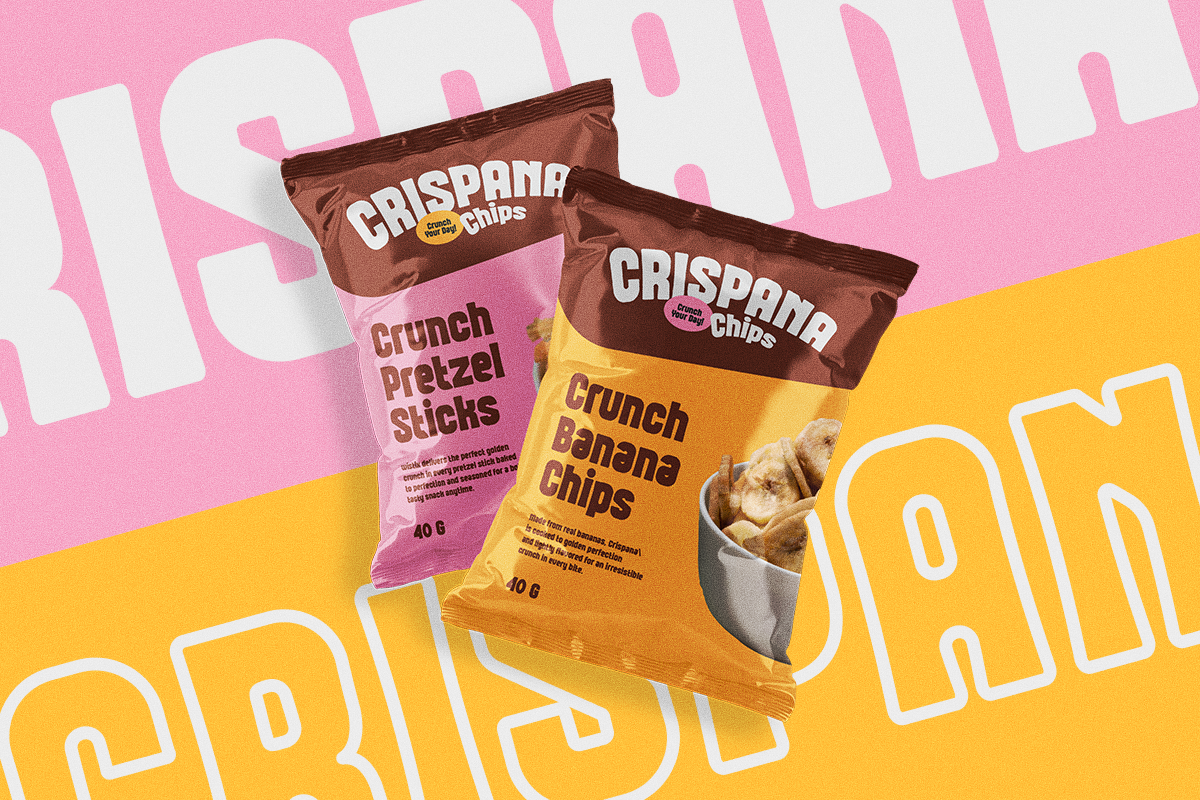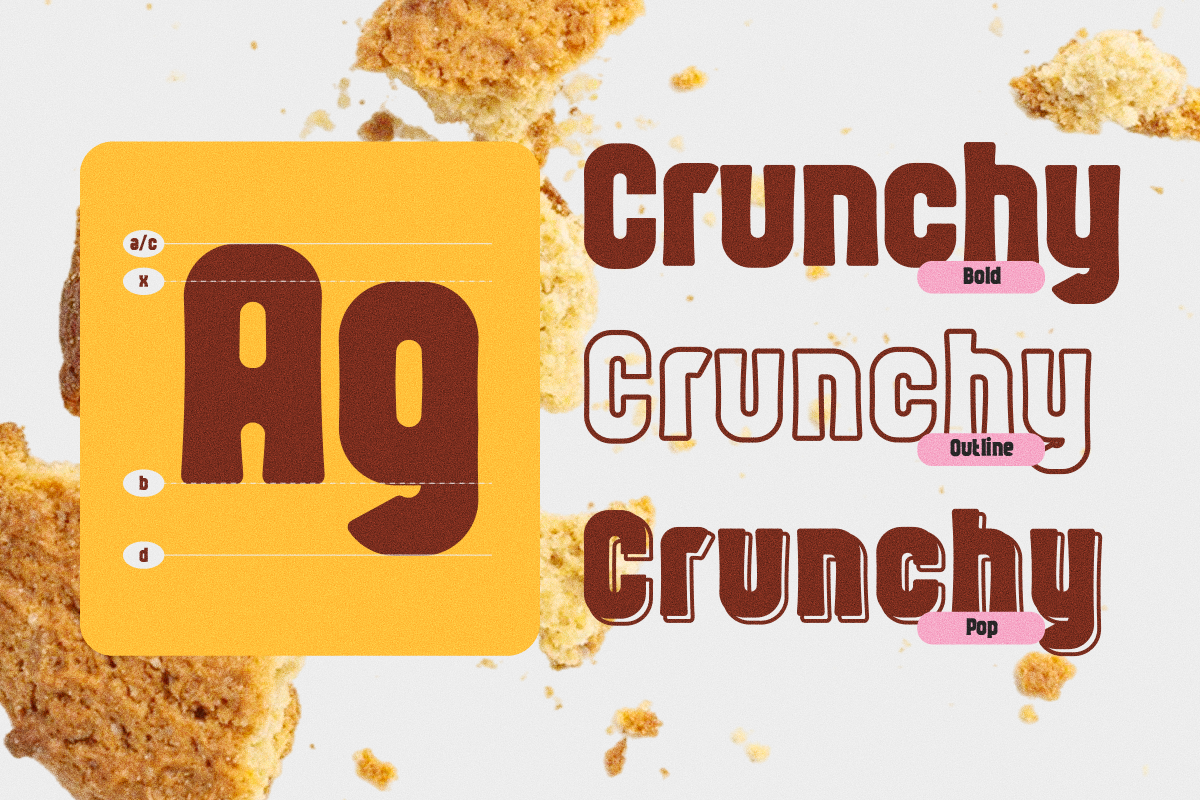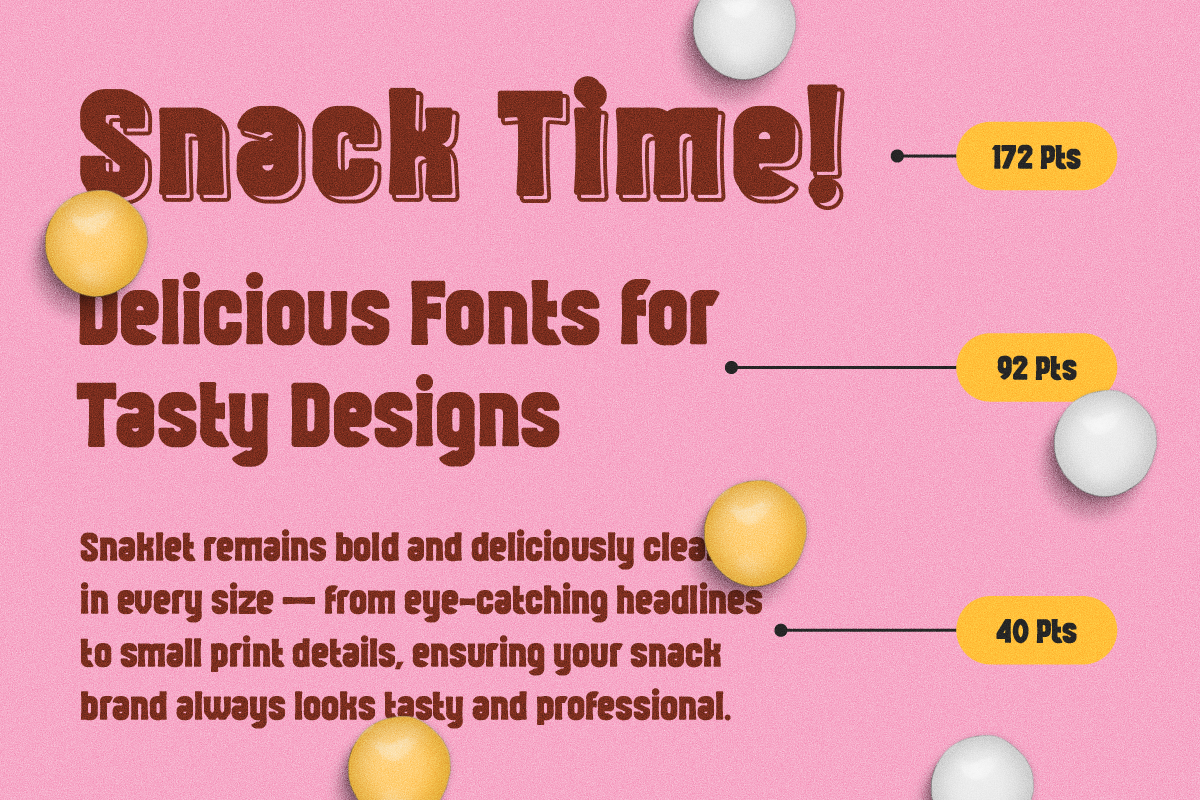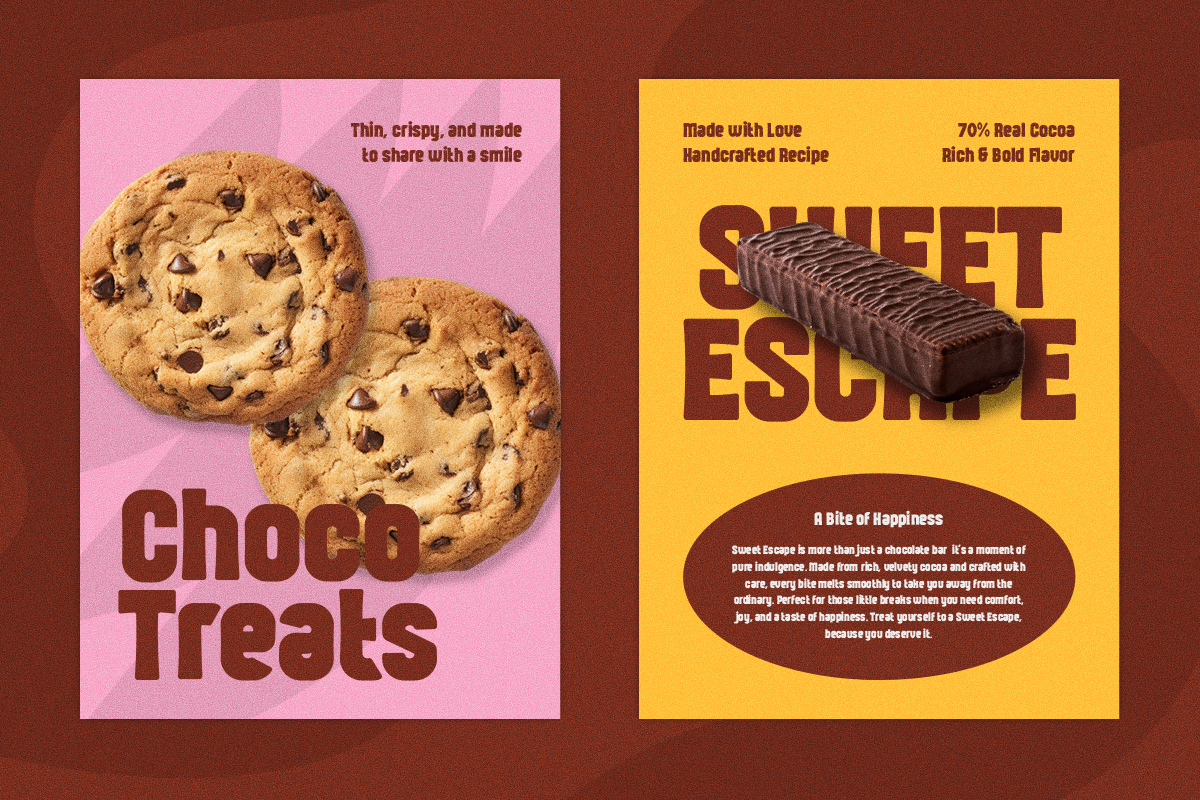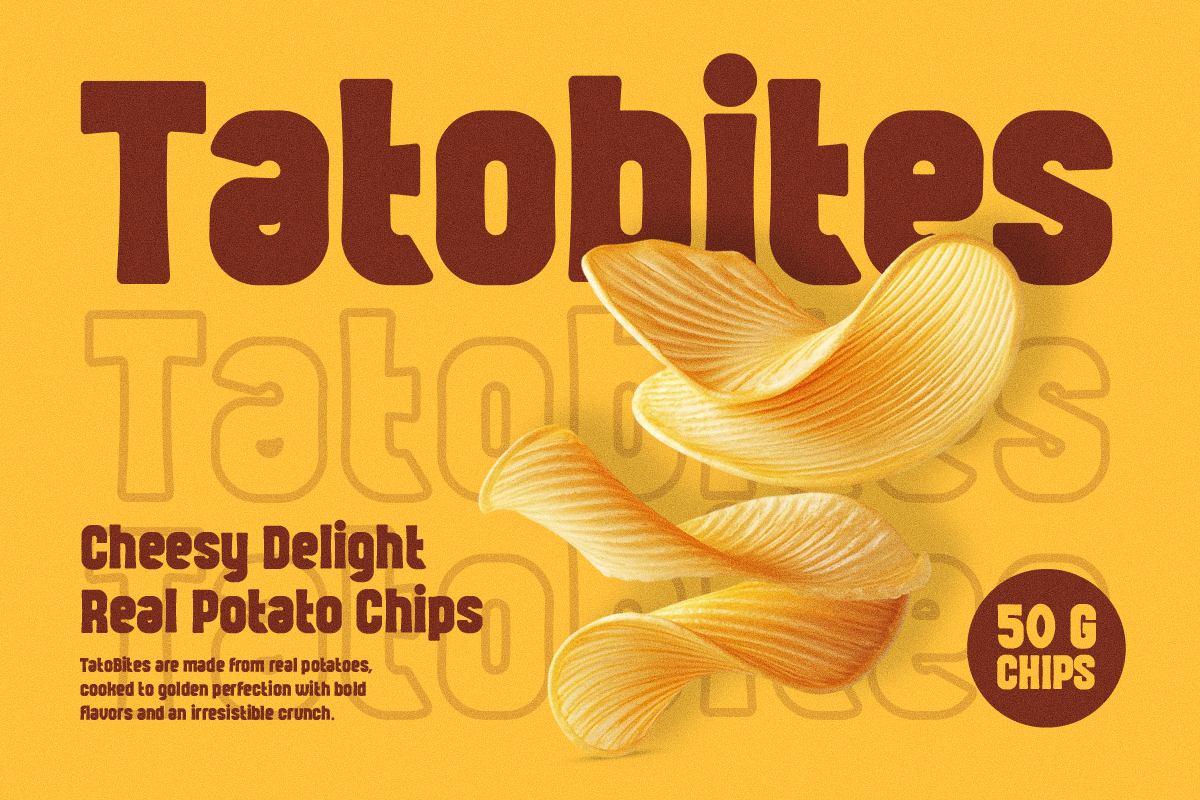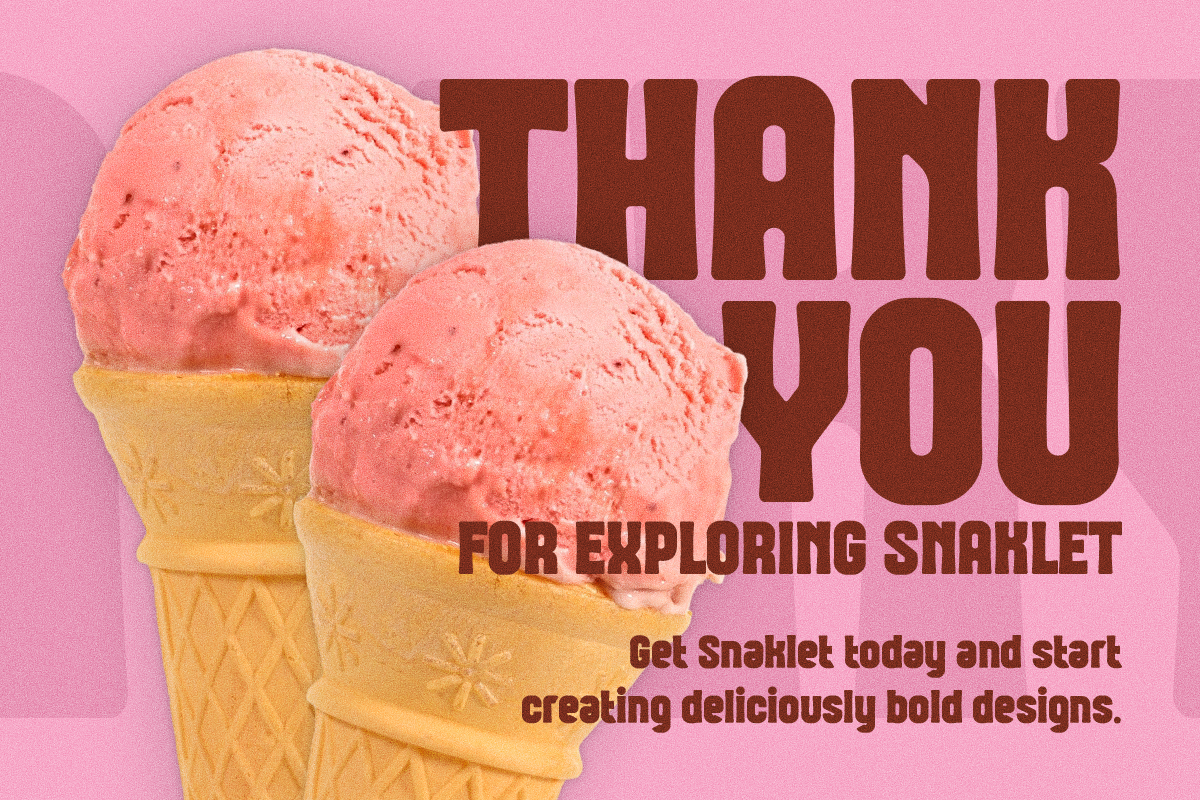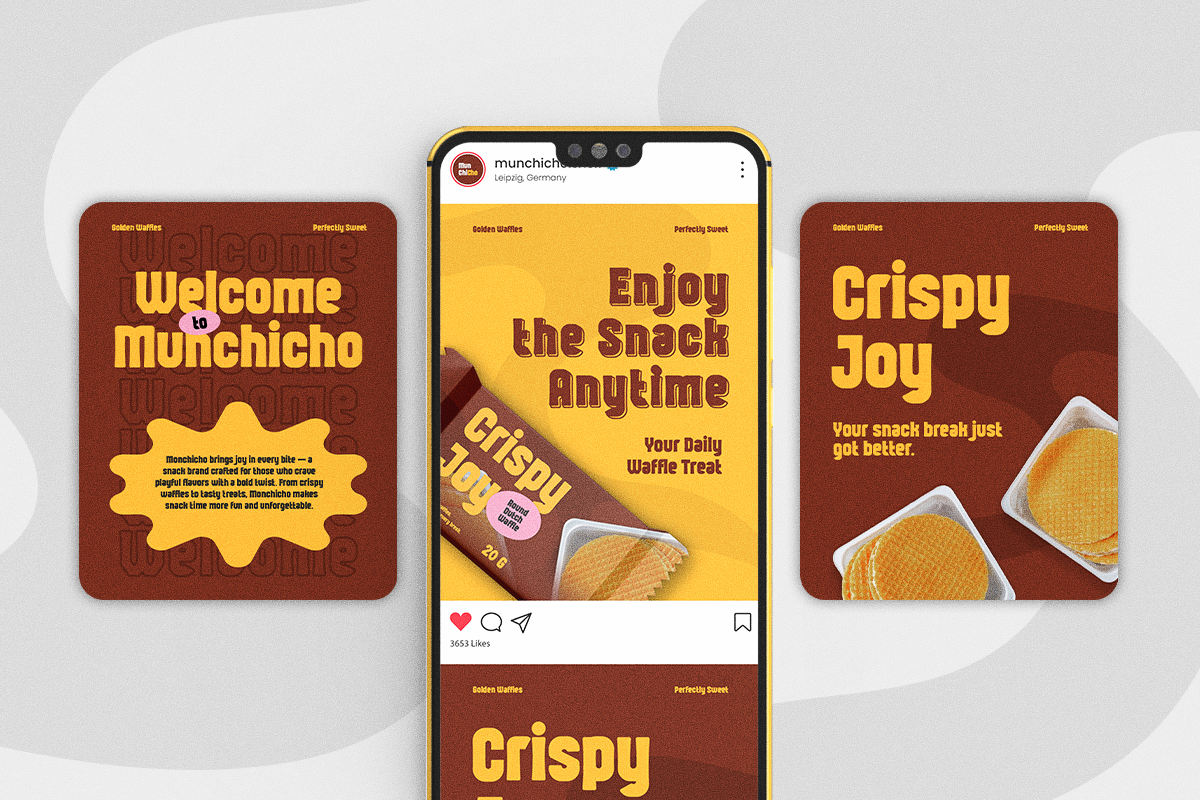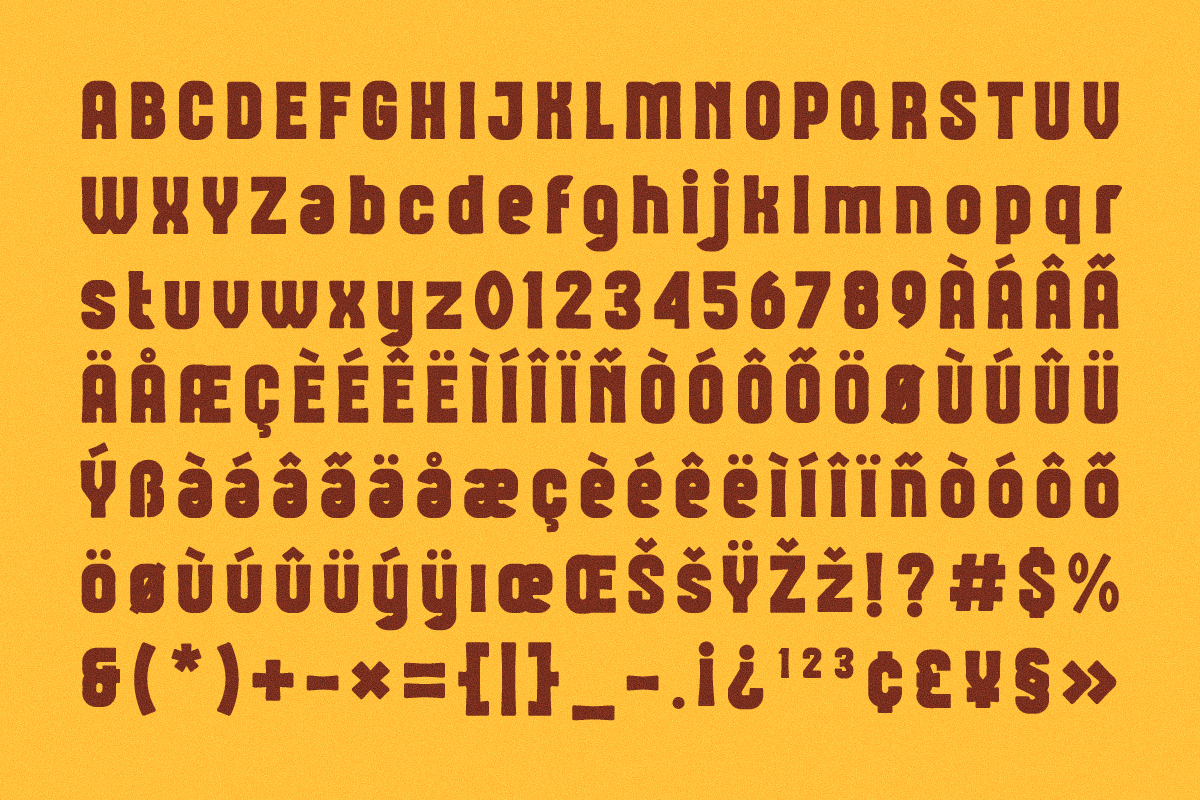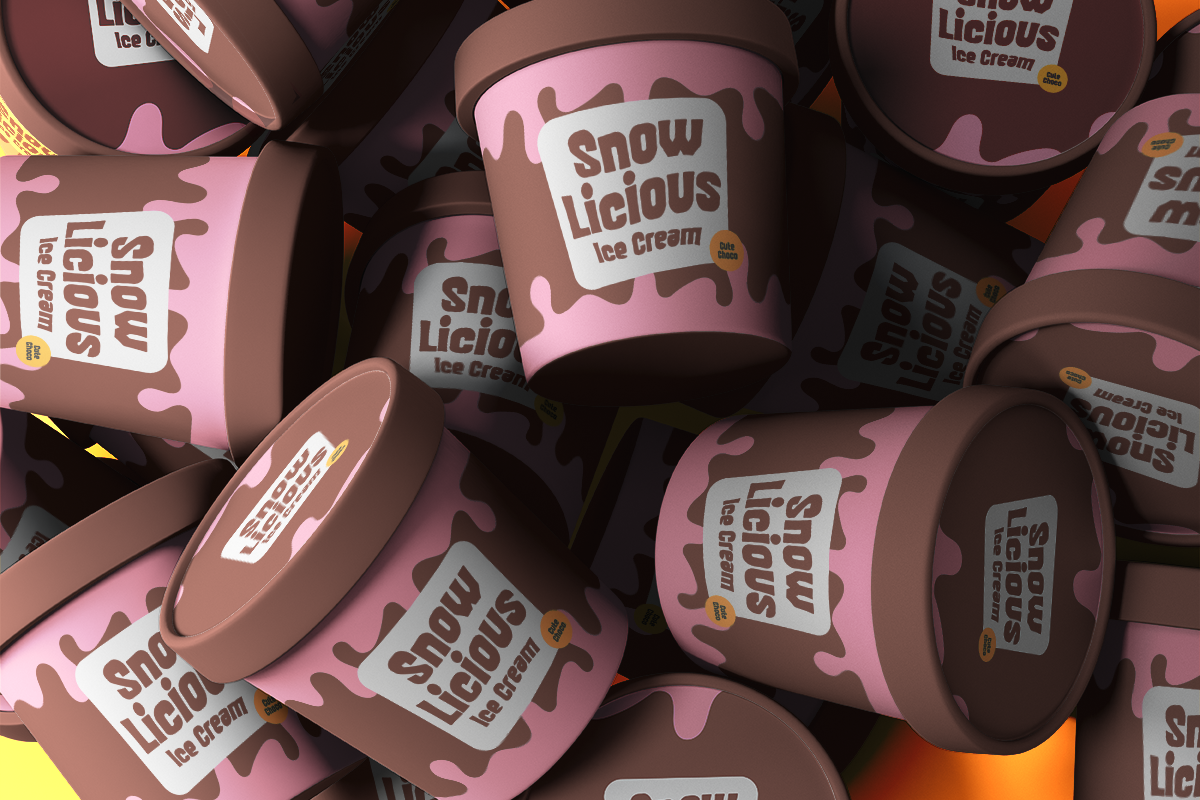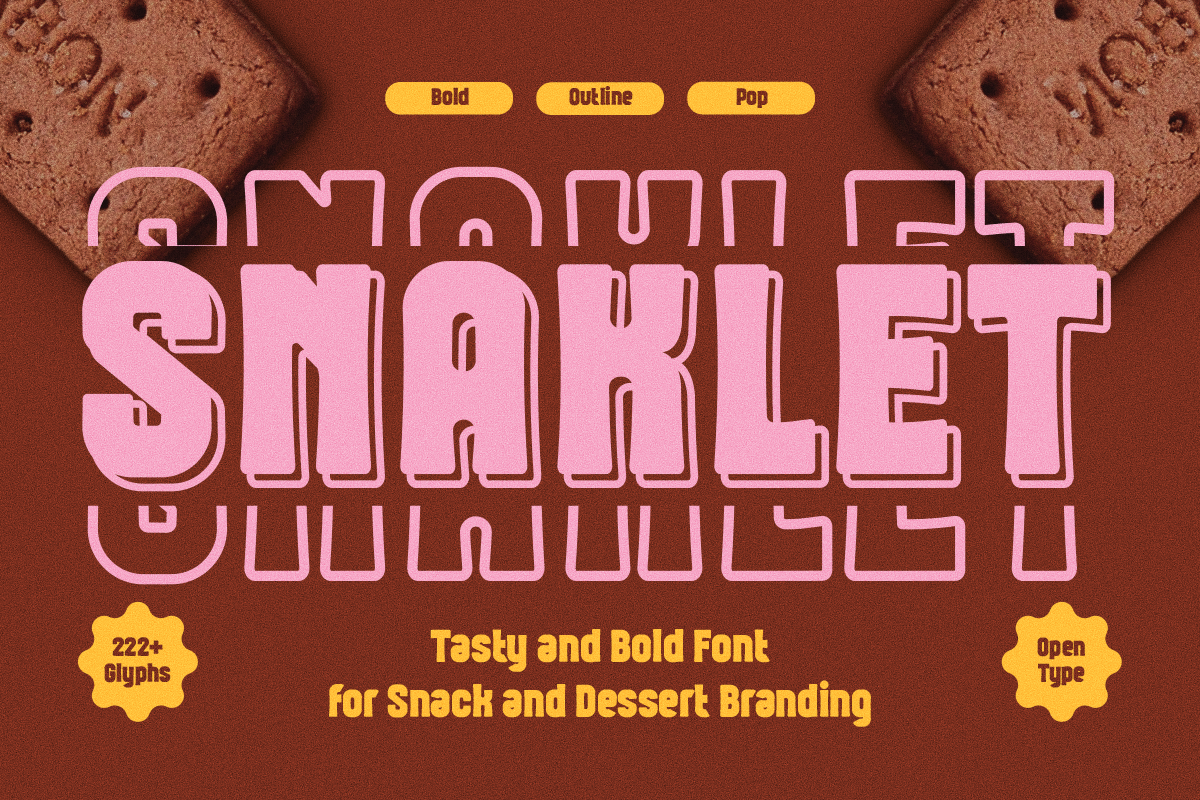
Snaklet - A Bold Display Font
Snaklet is a bold display typeface inspired by the irresistible charm of snacks, desserts, and playful branding. Featuring chunky letterforms, soft rounded corners, and three versatile styles—Bold, Outline, and Pop—Snaklet is designed to create eye-catching headlines that feel fun, energetic, and full of personality.
Whether you're designing cookie packaging, candy labels, ice cream branding, café menus, beverage promotions, or social media content, Snaklet delivers a sweet and memorable visual impact. Its thick, highly legible characters make it ideal for both print and digital applications, while the included alternate styles give you the flexibility to build layered, colorful typography with ease.
Packed with over 222 glyphs, multilingual support, and OpenType features, Snaklet is the perfect companion for designers looking to create cheerful branding that instantly attracts attention.